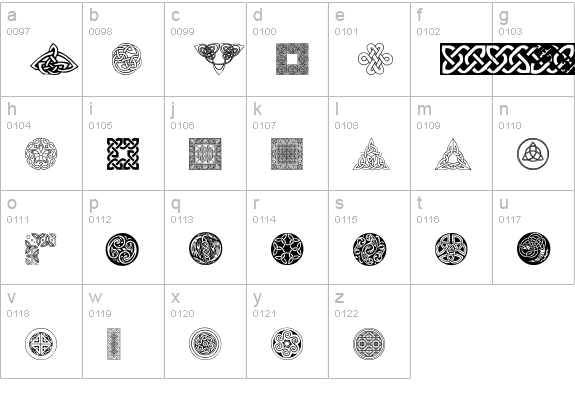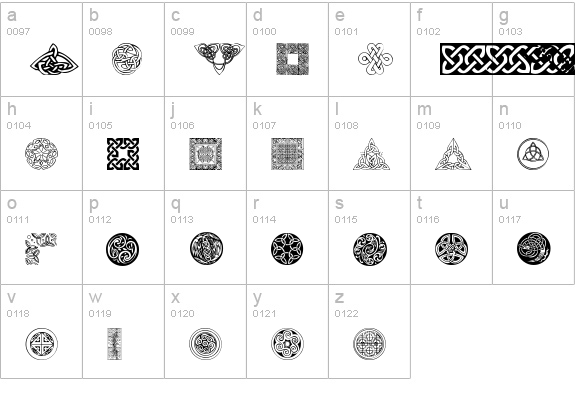
Celtic Elements IV Font Details
Celtic Elements IV is a captivating and intricate font inspired by traditional Celtic design elements. With its ornate details and elegant curves, this typeface exudes a sense of history and mystique. Perfect for adding a touch of ancient charm to your projects, whether it's for branding, invitations, or artistic endeavors. What makes Celtic Elements IV even more appealing is that it is available for free download at FontsMarket.com. You can easily access this stunning font and incorporate its unique style into your creations without any cost. Embrace the beauty and richness of Celtic culture with Celtic Elements IV, a typeface that brings a touch of magic to your designs.